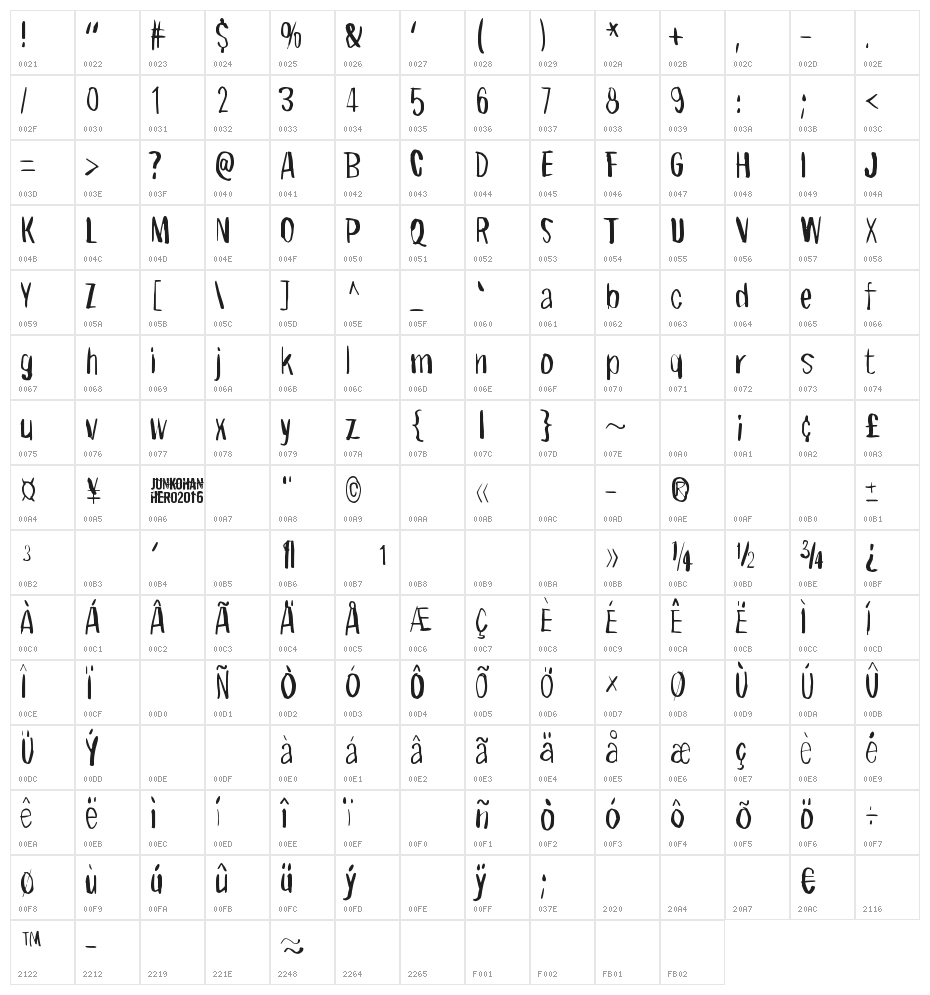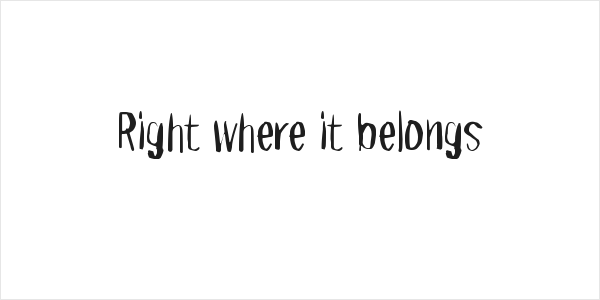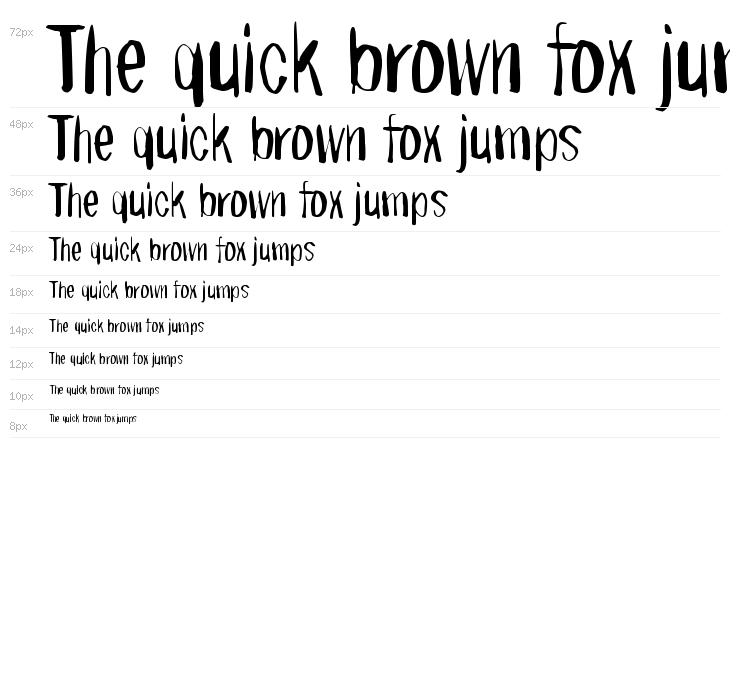
Right where it belongs Font
Right where it belongs Description
This font features a bold and expressive handwritten style, characterized by its uneven strokes and playful, artistic flair. The letters exhibit a dynamic and organic form, with varying thickness that adds a sense of movement and energy. The uppercase and lowercase letters maintain a consistent style, while the numerals and special characters complement the overall aesthetic. The font's irregularities and unique shapes give it a handcrafted feel, making it suitable for creative and informal applications. Its distinctive appearance is both eye-catching and memorable, ideal for projects that require a personal touch.